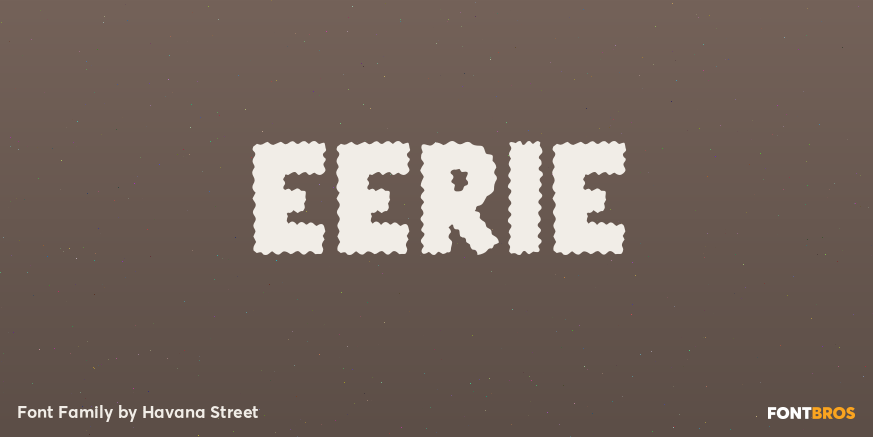
About Eerie
Eerie is sure to bring the ghosts and ghouls out of your computer for some spooky fun! Perfect for Halloween, haunted houses, or when you need that classic creepy look! Previously available only from the hand of the artist, Havana Street has brought…